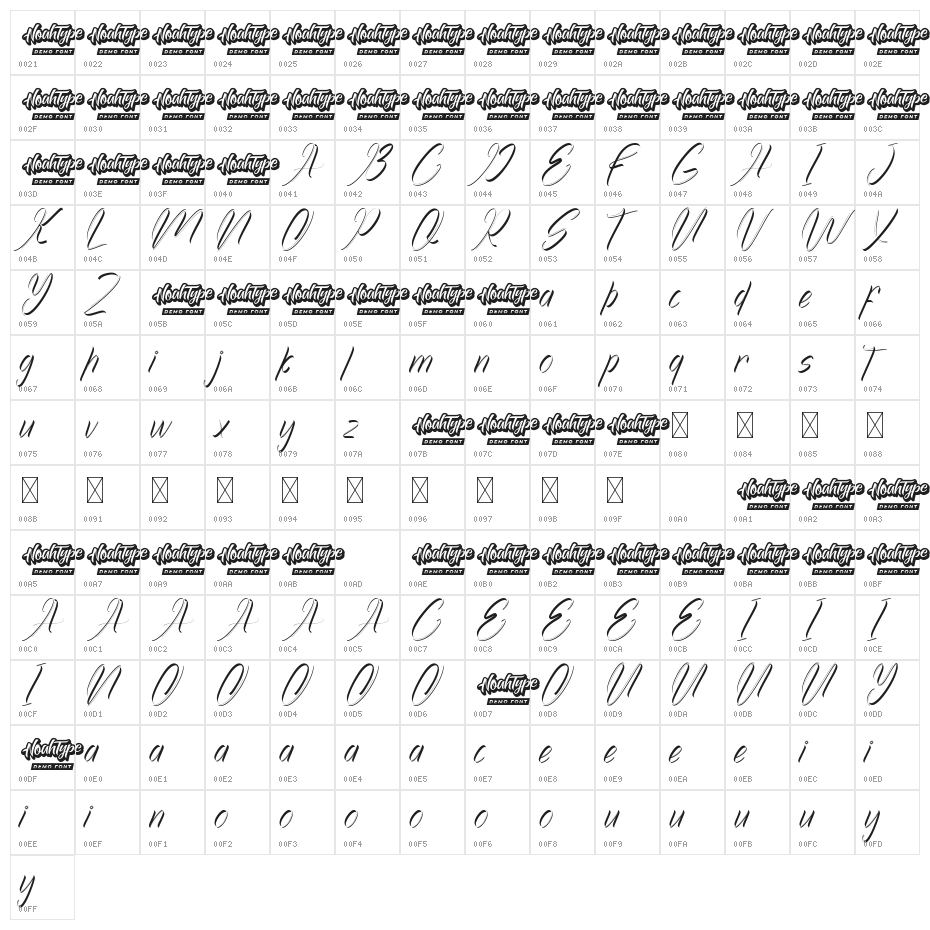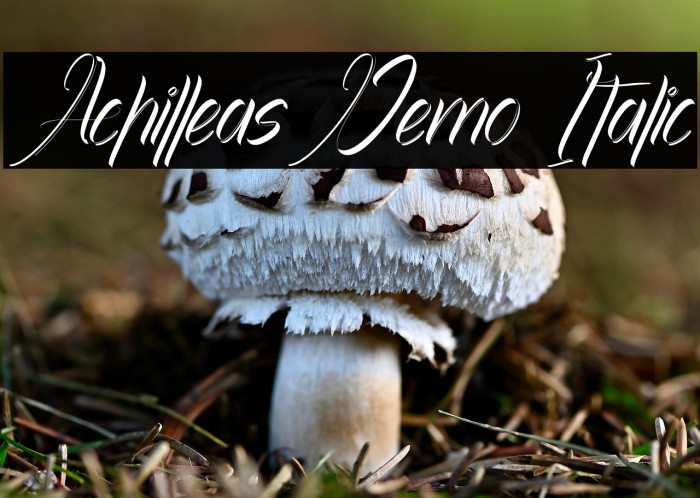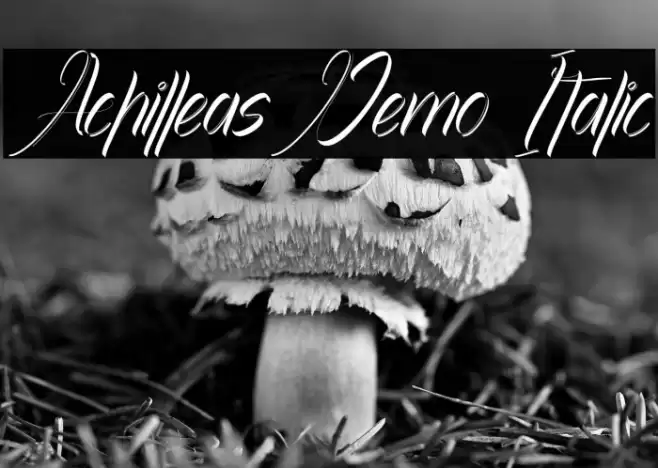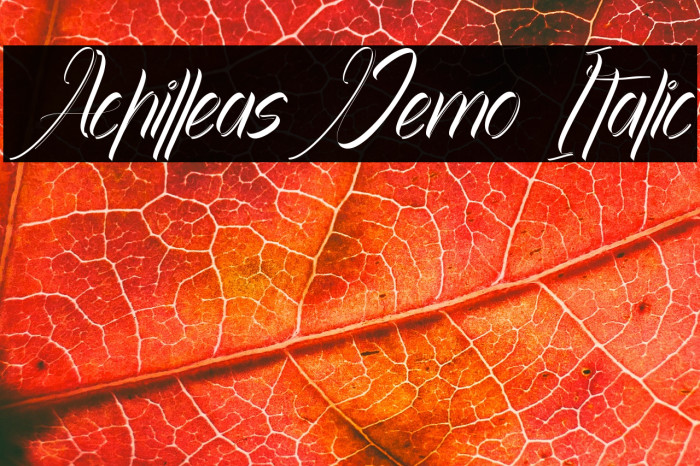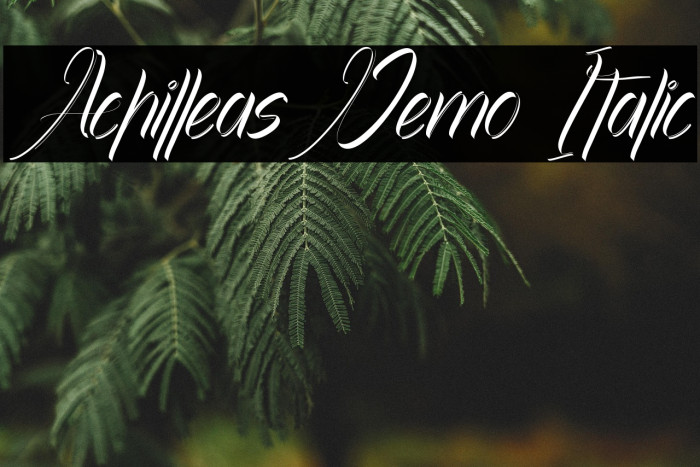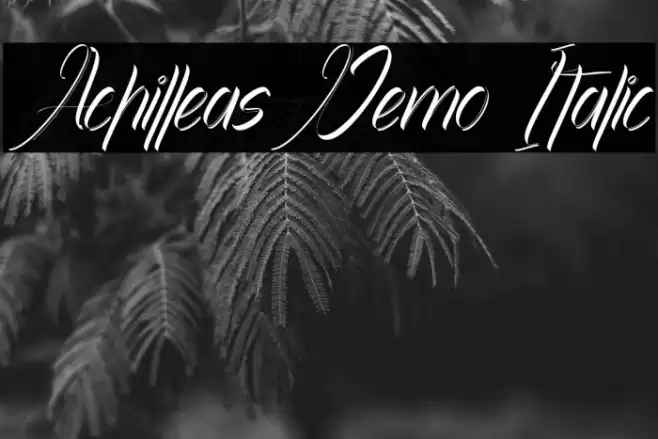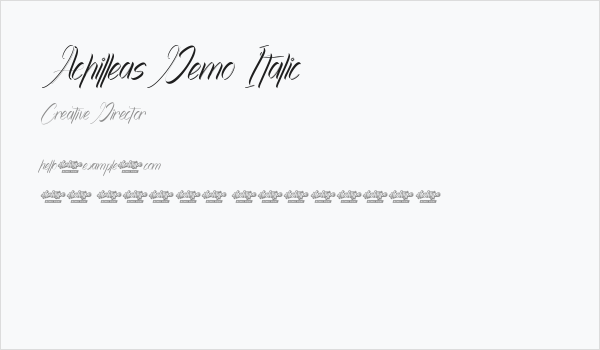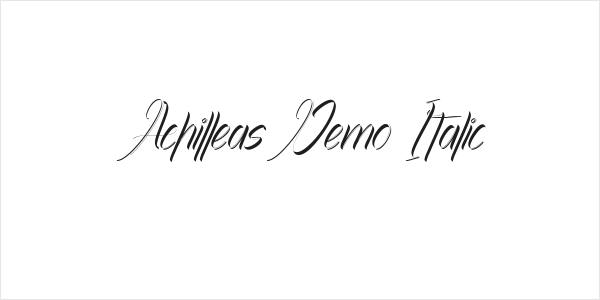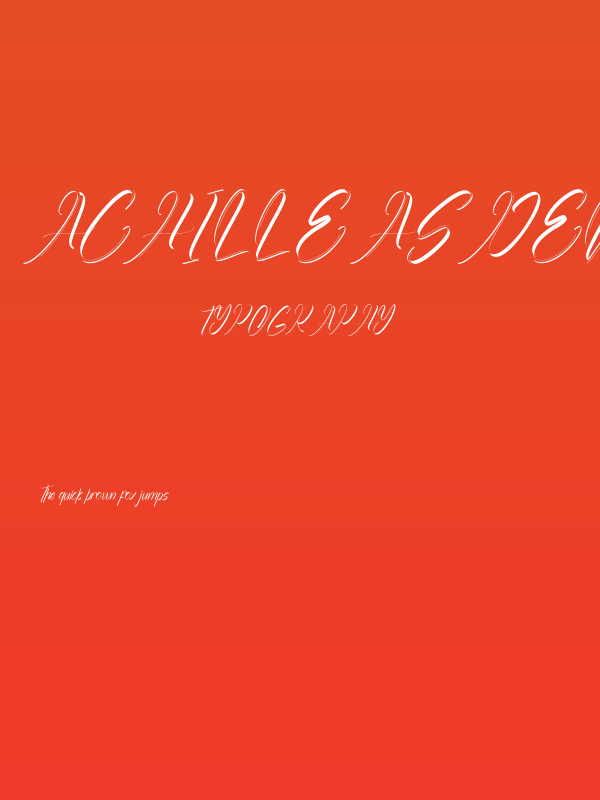
Achilleas Demo Italic Font
Achilleas Demo Italic Description
This font exhibits a dynamic and elegant script style, characterized by its fluid, cursive strokes and a pronounced slant that gives it an italic appearance. The letters are interconnected, creating a seamless flow that enhances its sophisticated and artistic look. The uppercase letters are gracefully elongated, while the lowercase letters maintain a consistent rhythm and balance. The font's design is both expressive and refined, making it suitable for creative and formal applications. Its high contrast in stroke thickness adds to its dramatic flair, while the overall form remains legible and stylish.
| Proposed Projects | Ideal for wedding invitations, elegant branding, greeting cards, and artistic projects. |